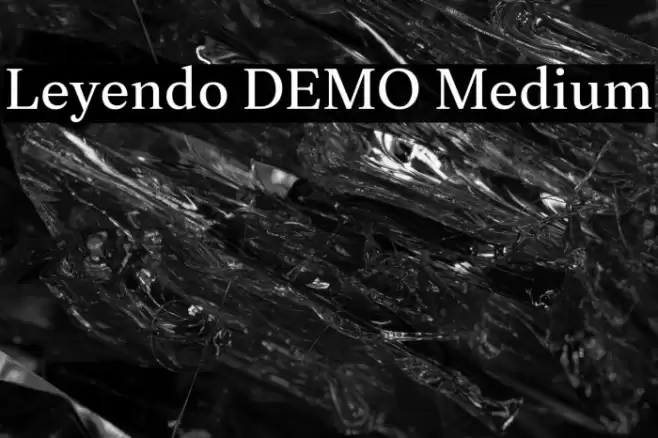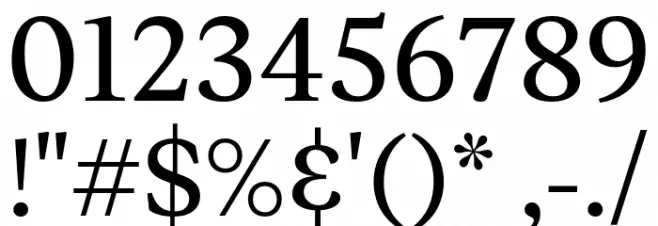
Leyendo DEMO Medium Font
Leyendo DEMO Medium Description
This font features a classic serif style with elegant and refined strokes. The uppercase letters are bold and commanding, while the lowercase letters maintain a balanced and harmonious appearance. The numerals are clear and distinct, making them highly legible. Special characters are crafted with precision, adding to the font's versatility. The overall design is timeless, suitable for both traditional and contemporary projects. Its medium weight provides a perfect balance between readability and style, making it ideal for a variety of applications.
A classic serif font with elegant strokes and balanced design from Regular fonts.
- Proposed Projects: Ideal for editorial design, book covers, formal invitations, and branding.
- Overall Style: Classic